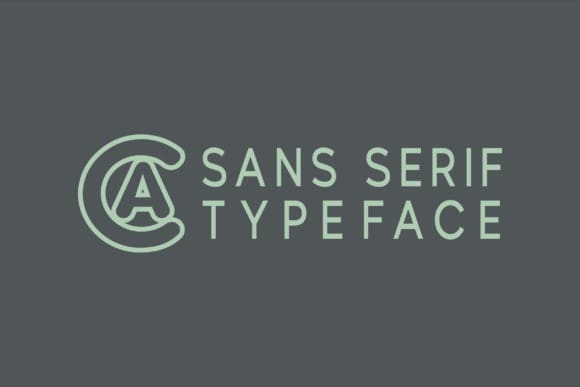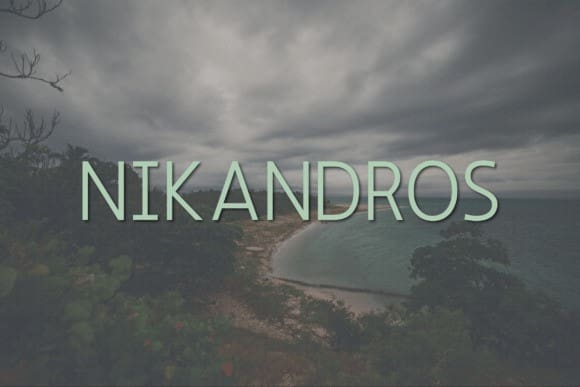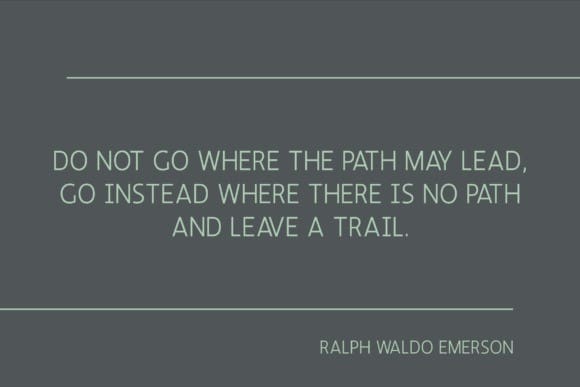
Nikandros Font
Nikandros Font, an epitome of contemporary sophistication in the realm of sans serif typefaces. Serving up a svelte sans serif experience, Nikandros comes with robust uppercase characters, nifty numerals from 0-9, and a diverse array of punctuation and symbols. Demonstrating ultimate versatility, Nikandros Font is a seamless fit for a wide spectrum of applications – from crafting compelling logos to designing exquisite wedding invitations, embellishing emotionally poignant quotes, crafting persuasive advertisements, impressing on print mediums, and creating visually captivating magazine layouts. Nikandros Font is sure to elevate any piece of textual design to the realm of art!